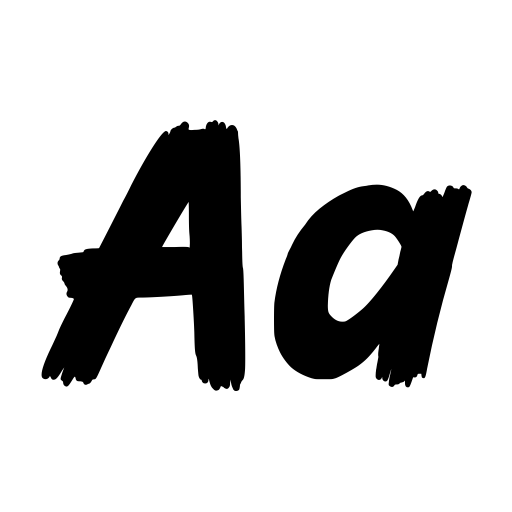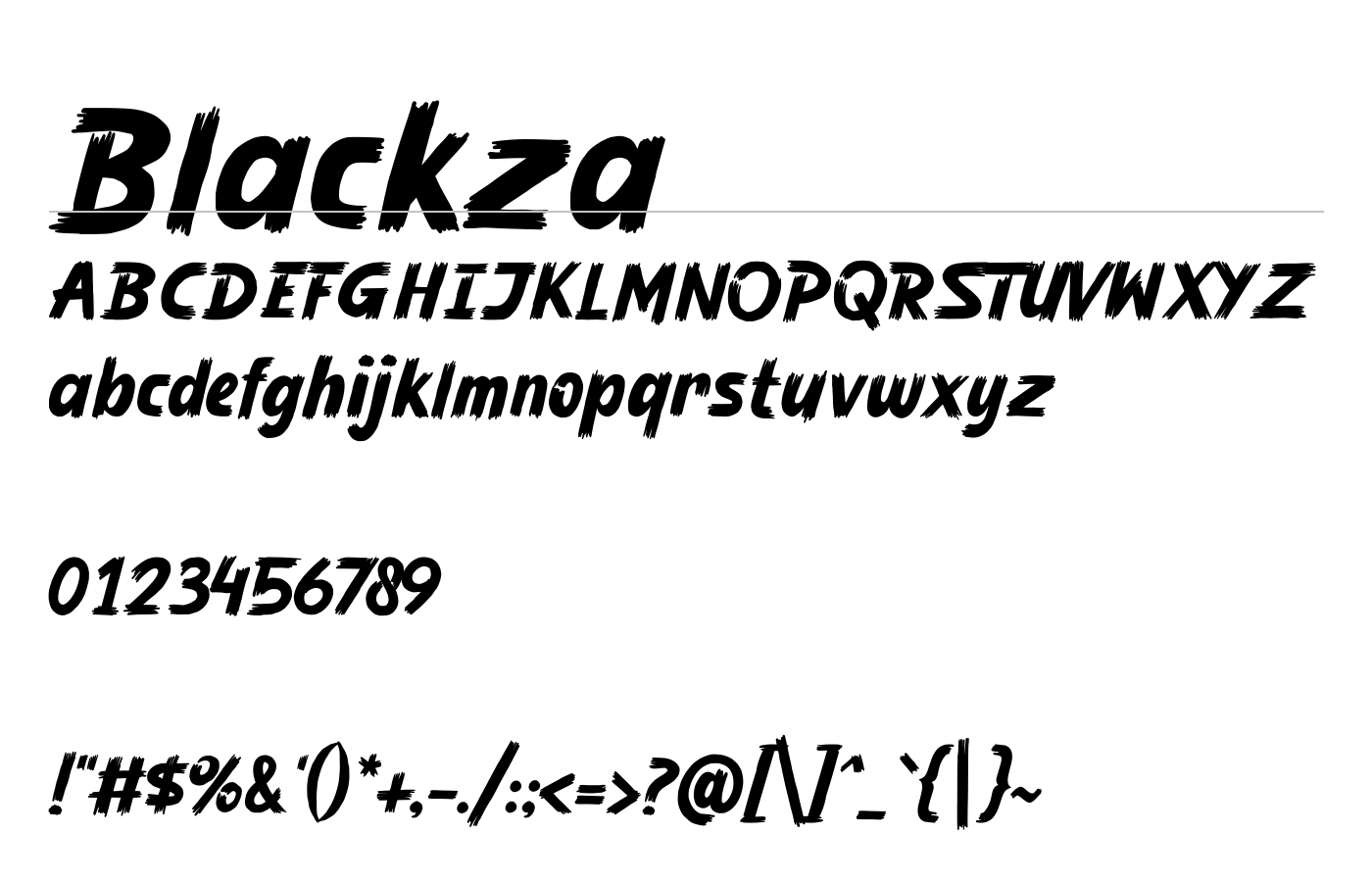
Blackza is a bold, energetic brush script font with a casual yet dynamic feel. Its rough, textured strokes and slightly condensed letterforms create a lively, handcrafted look that works well for playful branding, posters, and eye-catching headlines. This font brings a sense of movement and personality, making it ideal for creative, informal designs that need to stand out.
Blackza Font
About Blackza Font
| Font family | Blackza Font |